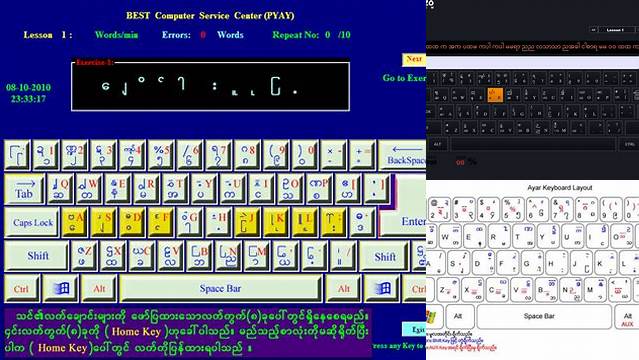
Are you looking to type in Myanmar but struggling to find the right tools? Don't worry, guys, you're in the right place! This article will be your complete guide to Myanmar font typing software, offering free downloads, installation guides, and tips to get you started. Whether you're a student, writer, or simply someone who wants to communicate in Myanmar, we've got you covered. We'll explore various software options, highlight their features, and walk you through the setup process. So, let's dive in and unlock the world of Myanmar typing!
Understanding the Need for Myanmar Font Software
Firstly, why do you even need Myanmar font typing software? Well, if you want to write in Burmese (the official language of Myanmar) on your computer, you'll need a specific font that supports the Myanmar script. Standard fonts often don't include these characters or display them incorrectly. This software ensures that the characters render correctly, allowing you to read and write accurately. Imagine trying to read a book where the letters are jumbled or missing – frustrating, right? That's precisely what happens when you try to type in Myanmar without the appropriate font. These software packages often include keyboard layouts designed specifically for Myanmar, making typing much more intuitive. They also offer features like dictionaries, character maps, and sometimes even predictive text, all designed to make typing in Myanmar as smooth as possible. Beyond personal use, this software is crucial for businesses, government offices, and anyone creating content in the language. So, having access to reliable Myanmar typing software is essential for effective communication. Think of it as the key to unlocking the digital world of the Myanmar language! This is also important because it helps in preserving the language and making it accessible to everyone, promoting cultural heritage. If you're a student, this software will help you with assignments. If you're a professional, it will help you with reports, and if you're a blogger, it will help you write content in Myanmar.
Top Free Myanmar Font Typing Software Options
Now, let's get to the good stuff: the free Myanmar font typing software options! There are several great choices out there, and we'll highlight some of the most popular and user-friendly ones. Keep in mind that availability and compatibility can change, so it's always a good idea to check the official websites for the latest information.
Zawgyi Font: Zawgyi is one of the most widely used fonts in Myanmar. It's a popular choice because it's easy to install and use. You can often find a Zawgyi keyboard layout bundled with the font or available as a separate download. Many websites and documents still use Zawgyi, so having this font installed is almost essential if you work with Myanmar text. The font itself is quite readable, and the keyboard layout is generally intuitive for those familiar with QWERTY keyboards. You can find free downloads for Zawgyi fonts online. This is usually a straightforward process. You can also consider installing a keyboard layout that matches the font, making typing easier. The keyboard layout is often included in the download package, but if it's not, you can easily download it separately.
Unicode Myanmar Fonts: Unlike Zawgyi, Unicode is the standard for encoding Myanmar characters. If you want the most compatibility across different systems and platforms, Unicode fonts are the way to go. The Myanmar3 font is a popular example. Unicode support ensures that your text will display correctly regardless of the device or software used to view it. The advantage of Unicode Myanmar fonts is their ability to work seamlessly across platforms. This is very important in the digital world because it ensures that the information will remain accessible no matter where it is used. So, the text is universal, which allows for broader distribution and readability. The keyboard layout is usually based on the standard Unicode layout. So, the user interface is easy to use and learn. Many operating systems, such as Windows, macOS, and Android, offer built-in support for Unicode Myanmar fonts. So, they may even be installed on your computer already!
Other Options: Besides Zawgyi and Unicode fonts, other specialized software is available that supports Myanmar font typing. These often provide additional features such as spell-checkers, dictionaries, and text-to-speech functionality. Explore these options to find the software that best suits your needs. Some of these tools may also support multiple languages or offer customization options to personalize your typing experience. Before choosing a software, research the features and user reviews to find a program that fits your requirements. Remember to always download software from trusted sources to avoid security risks.